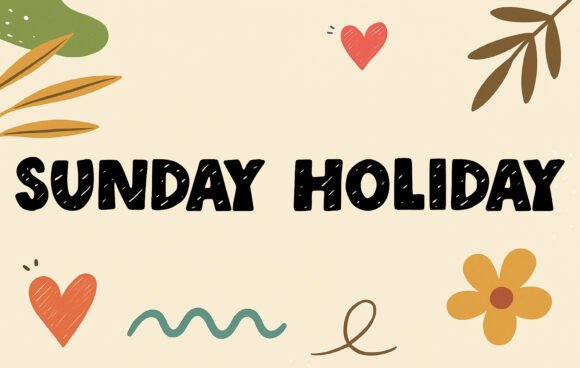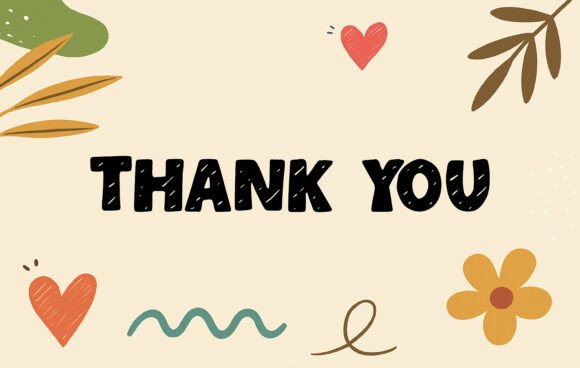
Introducing Angga Font: Elevate Your Designs with Elegance and Versatility
In the world of typography, fonts play a crucial role in bringing creative ideas to life. Among the myriad of fonts available, Angga Font stands out as a meticulously designed typeface that promises to be a favorite among designers and crafters alike. This font is not just a simple collection of letters; it’s a tool that can elevate your designs, making them more engaging, legible, and aesthetically pleasing. Whether you’re working on magazine headlines, t-shirts, social media content, branding materials, wedding invitations, or cards, Angga Font is the perfect companion to help you achieve your creative goals.
Legibility and Versatility: The Hallmarks of Angga Font
One of the key features that make Angga Font exceptional is its high legibility. In today’s fast-paced digital age, where information overload is common, ensuring that your message is easily readable is crucial. Angga Font addresses this need by offering clear and clean lines that make it easy on the eyes, whether it’s used for body text or as a headline. Its versatility is another significant advantage, allowing it to seamlessly fit into various design contexts. From the bold statement of a magazine headline to the subtle elegance of a wedding invitation, Angga Font adapts with ease, making it an incredibly versatile tool in any designer’s arsenal.
Angga Font’s adaptability and aesthetic appeal make it suitable for a multitude of design projects. Here are some areas where this font truly shines:
- Magazine Headlines: Grab the attention of your readers with bold and stylish headlines that set the tone for your content.
- T-Shirts and Merchandise: Create eye-catching apparel and merchandise that stands out, thanks to the font’s unique character and legibility.
- Social Media: Elevate your social media presence with professional-looking posts and stories that capture your audience’s attention.
- Branding: Establish a strong brand identity with a font that communicates your message clearly and stylishly.
- Wedding Invitations and Cards: Add a touch of elegance and sophistication to your wedding invitations, greeting cards, and other personal stationery.
Why Choose Angga Font?
Choosing Angga Font for your design projects comes with numerous benefits. Here are a few reasons why designers and crafters are gravitating towards this font:
- Ease of Use: Angga Font is designed to be user-friendly, making it easy to incorporate into your projects, regardless of your design experience.
- Unique Style: Stand out from the crowd with a font that has a distinct personality, helping your designs to leave a lasting impression.
- High Quality: Crafted with attention to detail, Angga Font ensures that your designs look professional and polished.
Angga Font is more than just a typeface; it’s a creative partner that can help bring your ideas to the forefront. Its legibility, versatility, and aesthetic appeal make it an excellent choice for a wide range of design projects. Whether you’re a professional designer or a crafting enthusiast, Angga Font has the potential to elevate your work, making it more engaging and impactful. So, if you’re looking for a font that can help you create designs that resonate with your audience, look no further than Angga Font.